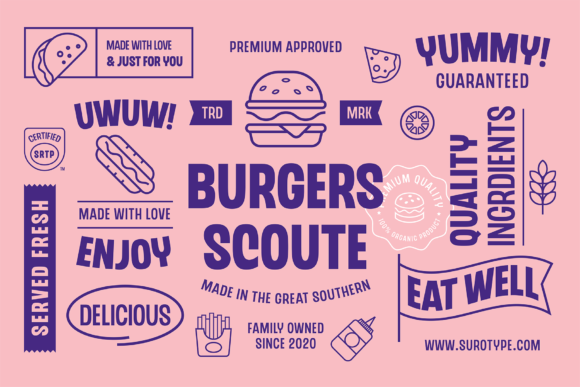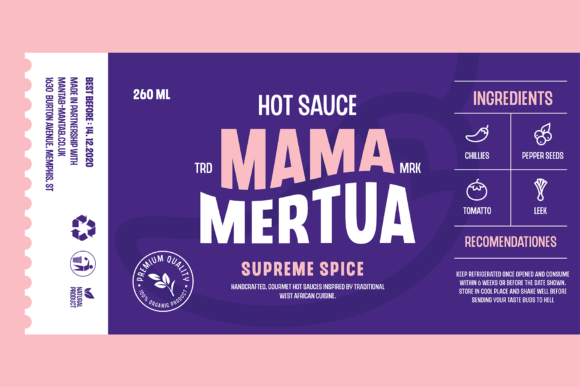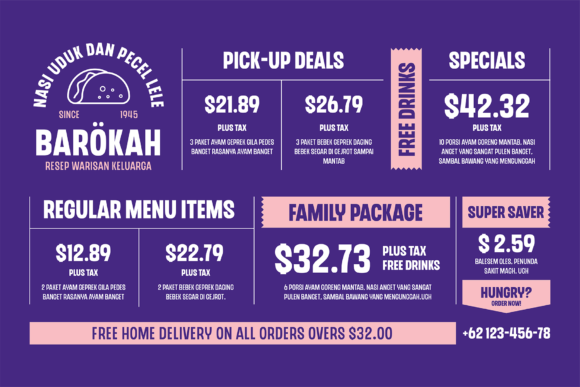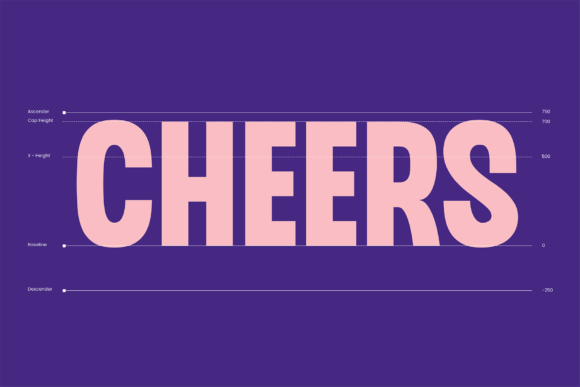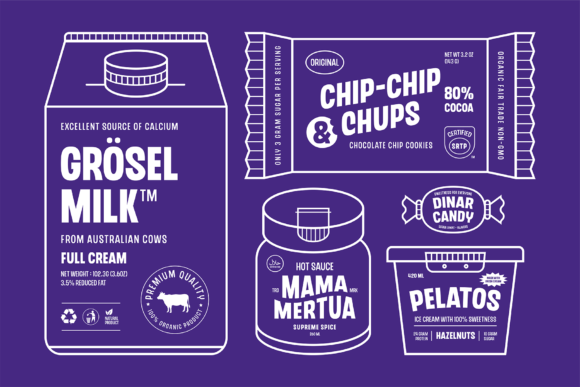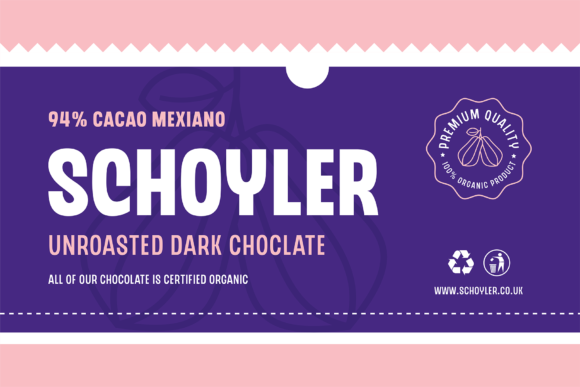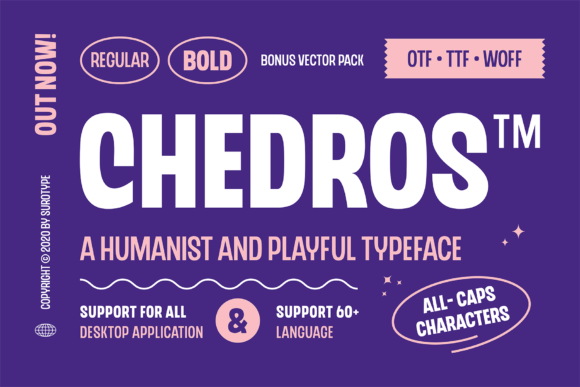
Chedros Font: Elevate Your Designs with a Modern Display Font
In the world of typography, a font can make or break a design. For designers and crafters looking for a modern display font that exudes style and sophistication, Chedros Font is an excellent choice. With its smooth curves, bold appearance, and high readability, Chedros is perfect for fashion branding, editorial designs, and any project that requires a touch of elegance.
The Characteristics of Chedros Font
Chedros Font is a modern display font designed to make a statement. Its smooth curves give it a sleek and refined appearance, making it perfect for designs that require a touch of sophistication. The font is bold and highly readable, ensuring that your message is conveyed with clarity and impact. Whether you’re working on a fashion brand, editorial design, or any other project that requires a stylish font, Chedros is an excellent choice.
Key Features of Chedros Font
- Modern Design: Chedros Font boasts a modern design that is perfect for contemporary designs.
- Smooth Curves: The font’s smooth curves give it a sleek and refined appearance.
- High Readability: Chedros Font is highly readable, making it perfect for designs that require a clear message.
- Bold Appearance: The font’s bold appearance ensures that your design makes a statement.
Uses of Chedros Font
Chedros Font is a versatile font that can be used in a variety of design projects. Here are some of the most popular uses of the font:
- Fashion Branding: Chedros Font is perfect for fashion branding, giving your brand a stylish and sophisticated appearance.
- Editorial Designs: The font is ideal for editorial designs, such as magazines, newspapers, and blogs.
- Advertising: Chedros Font can be used in advertising materials, such as billboards, posters, and flyers.
- Packaging: The font can be used in packaging designs, such as product labels and packaging materials.
Why Choose Chedros Font?
There are many fonts available, but Chedros Font stands out from the rest. Here are some reasons why you should choose Chedros Font for your next design project:
- Unique Design: Chedros Font has a unique design that sets it apart from other fonts.
- High Quality: The font is of high quality, ensuring that your design looks professional and polished.
- Easy to Read: Chedros Font is highly readable, making it perfect for designs that require a clear message.
- Versatile: The font is versatile and can be used in a variety of design projects.
Tips for Using Chedros Font
Here are some tips for using Chedros Font in your design projects:
- Use it as a Display Font: Chedros Font is perfect for use as a display font, making it ideal for headings and titles.
- Pair it with Other Fonts: The font can be paired with other fonts to create a unique and stylish design.
- Experiment with Different Sizes: Chedros Font looks great in different sizes, so experiment with different sizes to find the one that works best for your design.
| Font Name | Chedros Font |
| Author | Surotype |
Chedros Font is a modern display font that is perfect for designers and crafters looking for a stylish and sophisticated font. With its smooth curves, bold appearance, and high readability, Chedros is ideal for fashion branding, editorial designs, and any project that requires a touch of elegance. Whether you’re working on a professional design project or a personal craft project, Chedros Font is an excellent choice. So why wait? Add Chedros Font to your project today and see the difference it can make!